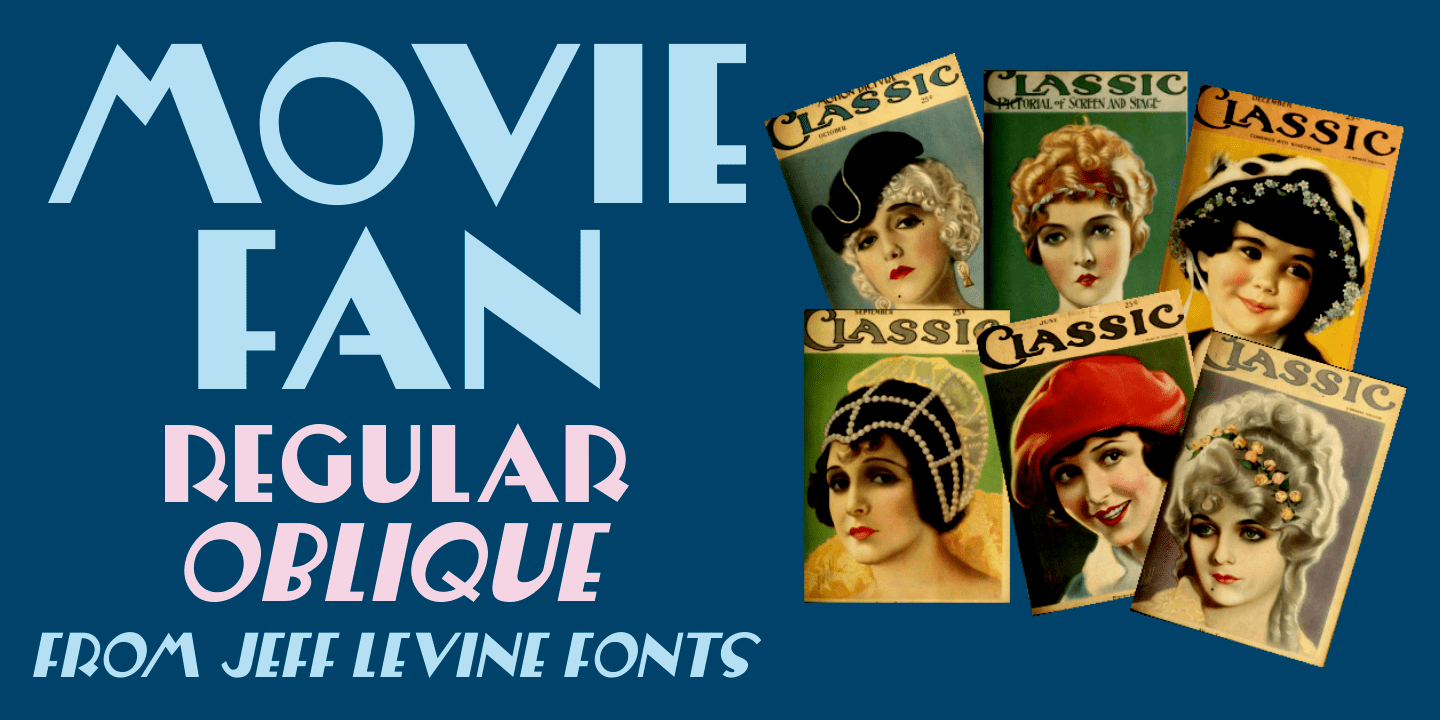
Movie Fan
The title block for the fan magazine Motion Picture Classic from July, 1920 was hand lettering in an Art Nouveau thick and thin sans serif style.
This is now available as Movie Fan JNL in both regular and oblique versions.